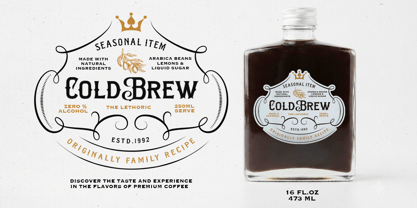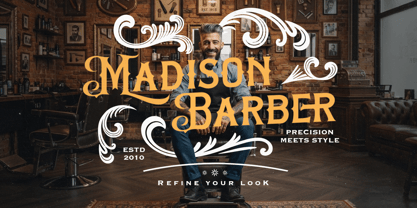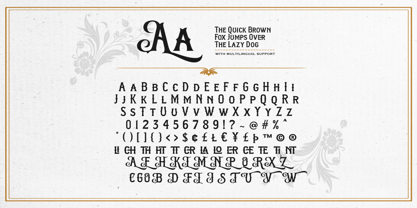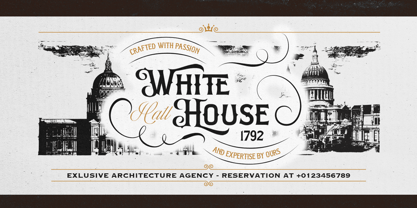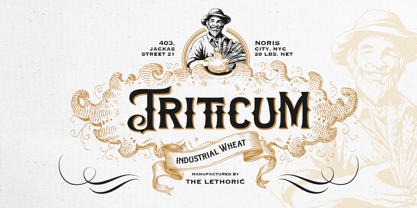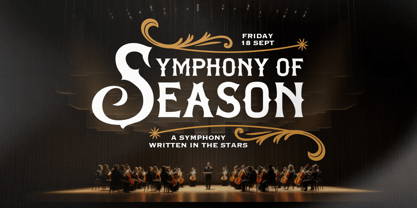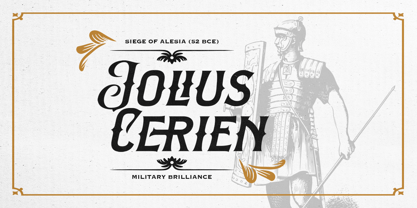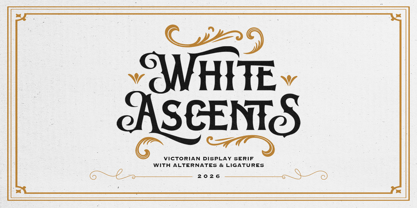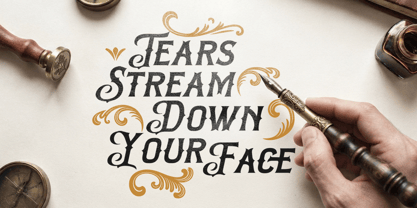
White Ascents
von Bale Type
Die Schriftfamilie White Ascents wurde von Dzikrul Aulia entworfen und von Bale Type veröffentlicht. White Ascents enthält 2 Stile und Familienpaketoptionen. Mehr über diese Familie
Introducing White Ascents, an all caps vintage-inspired typeface that captures the timeless character of classic sign painting and Victorian-era typography. With its strong, sturdy letterforms and nostalgic personality, White Ascents brings an authentic old-school charm to every design. Perfect for headlines, logotypes, invitations, packaging, branding, posters, and editorial projects, this typeface is an excellent choice for designs that call for a distinctive Victorian or vintage aesthetic. This font also includes multilingual support, making it a versatile choice for creative projects around the world.